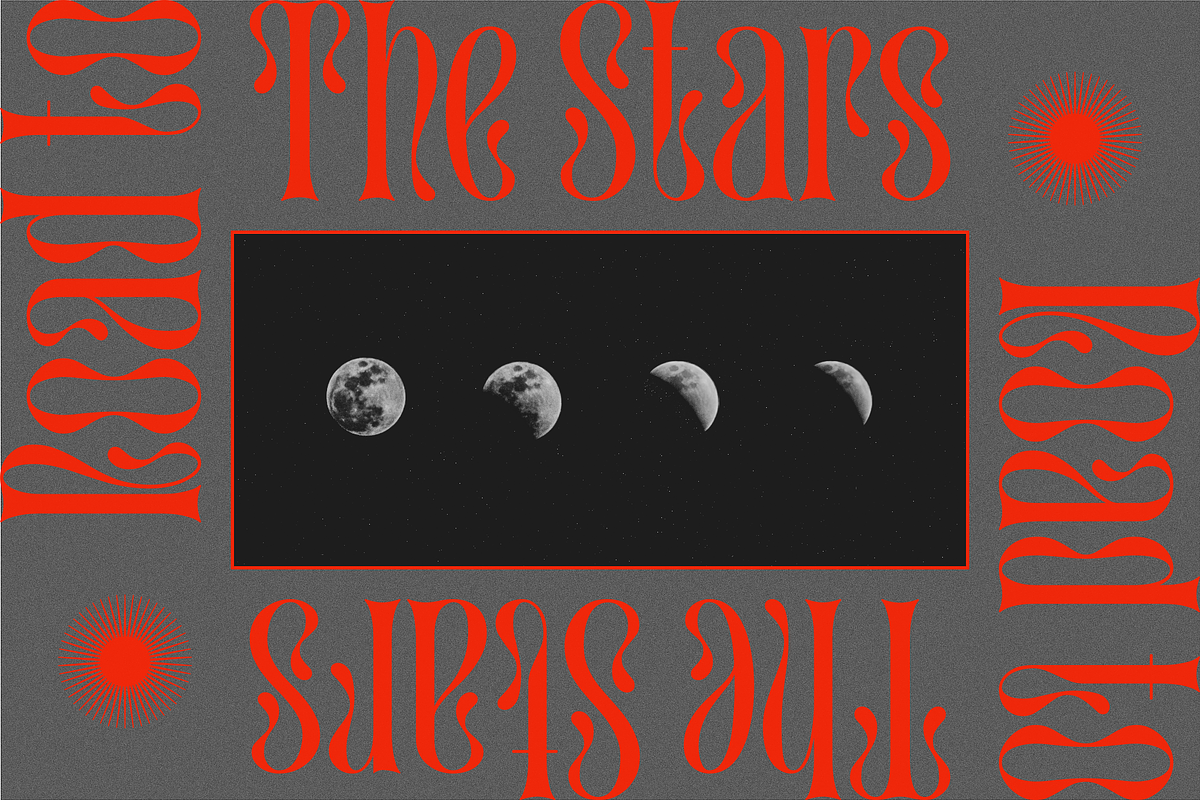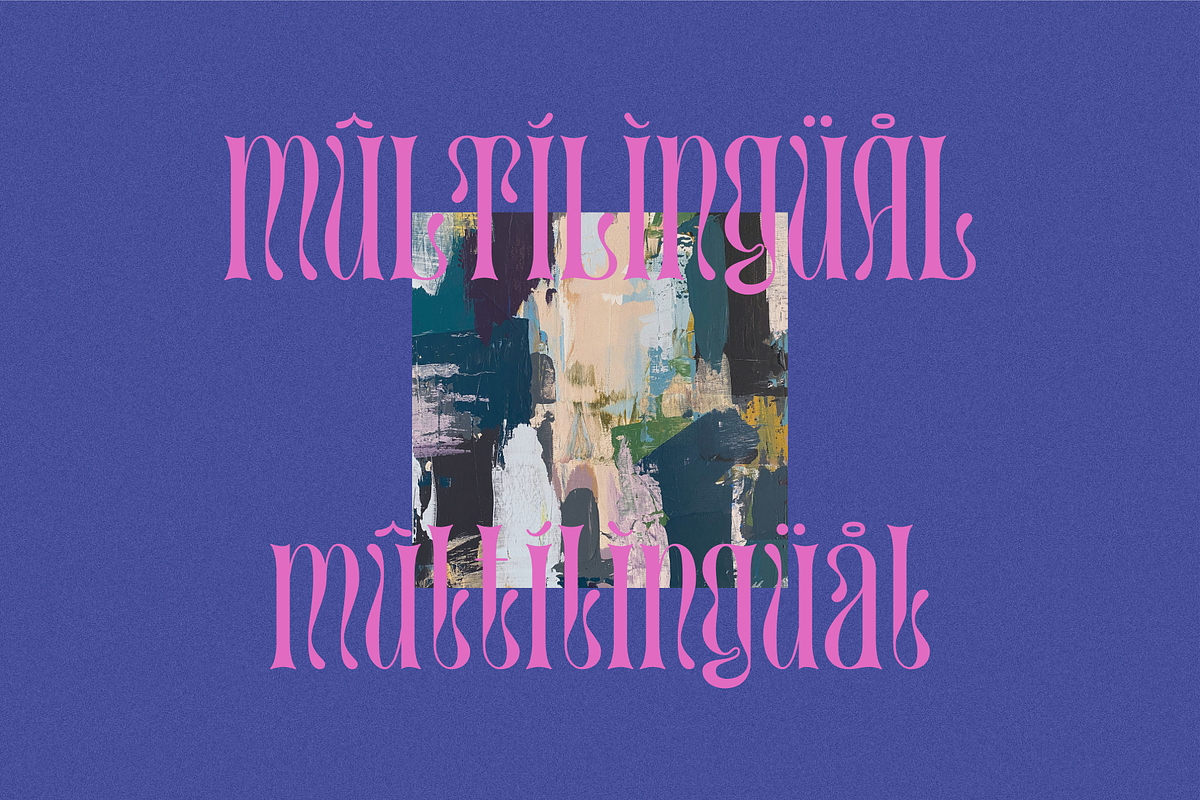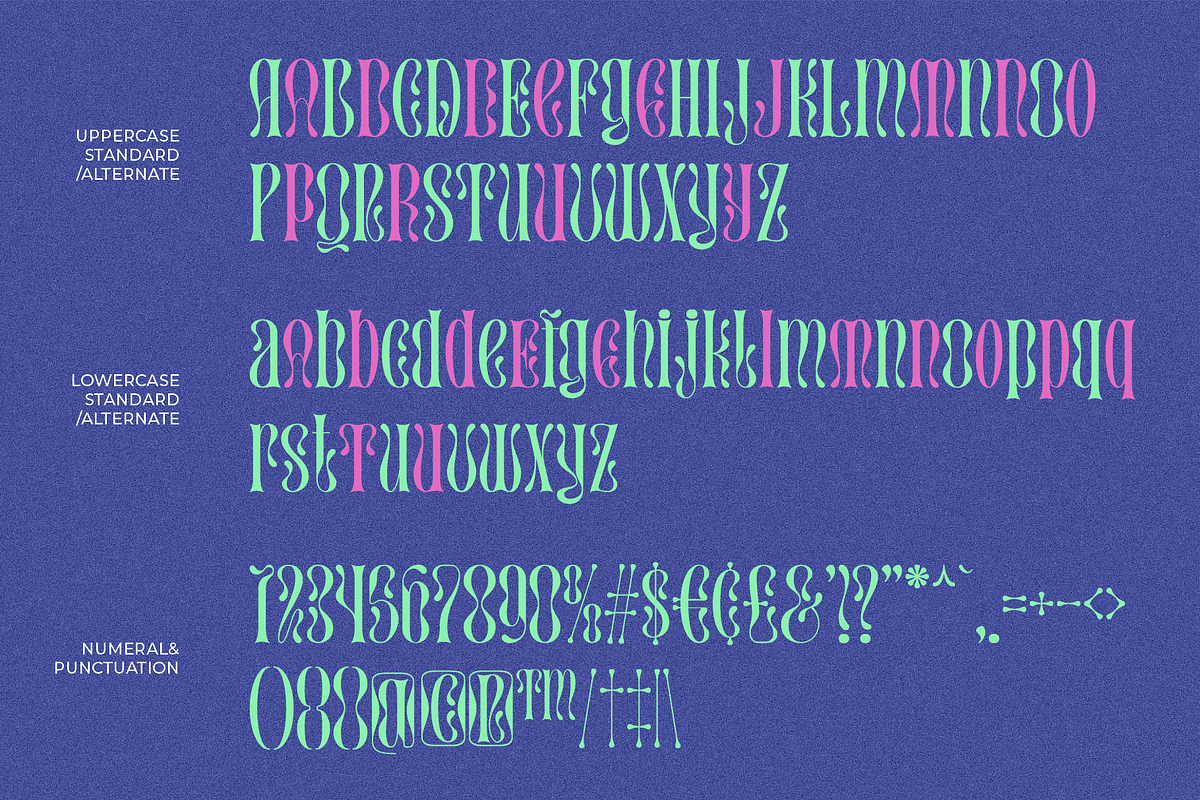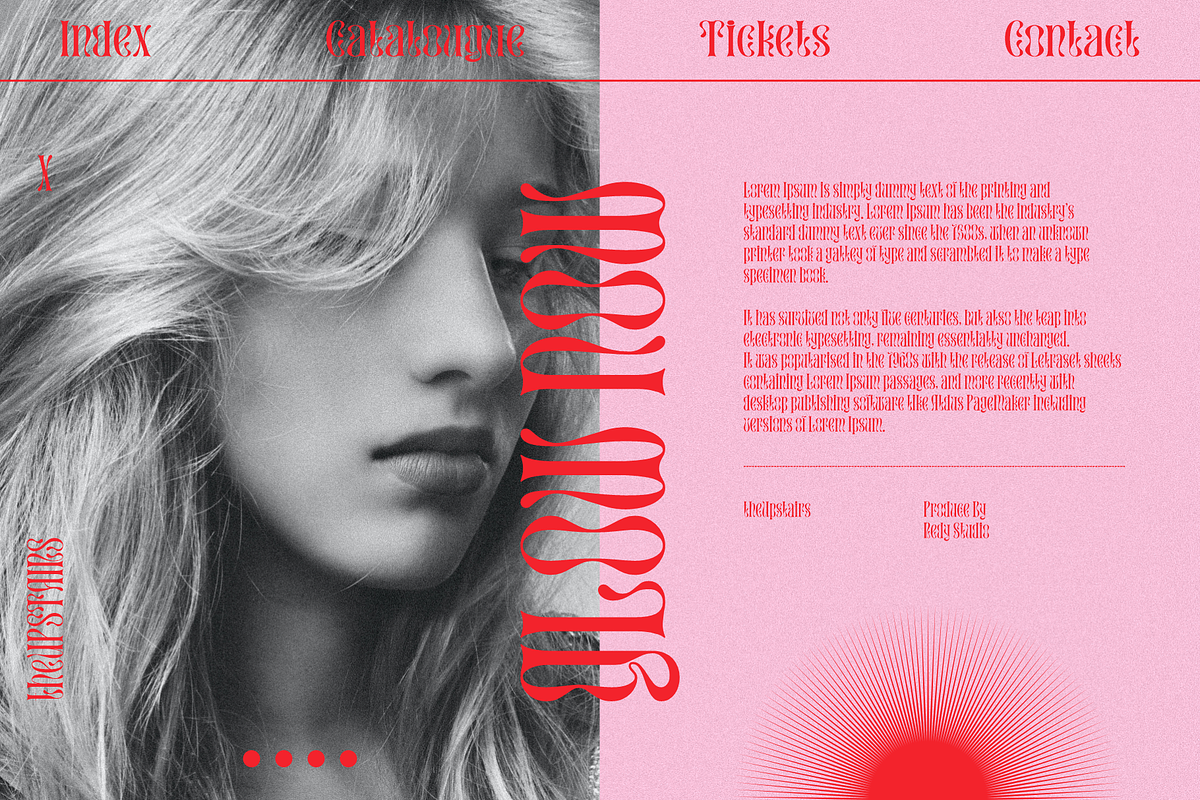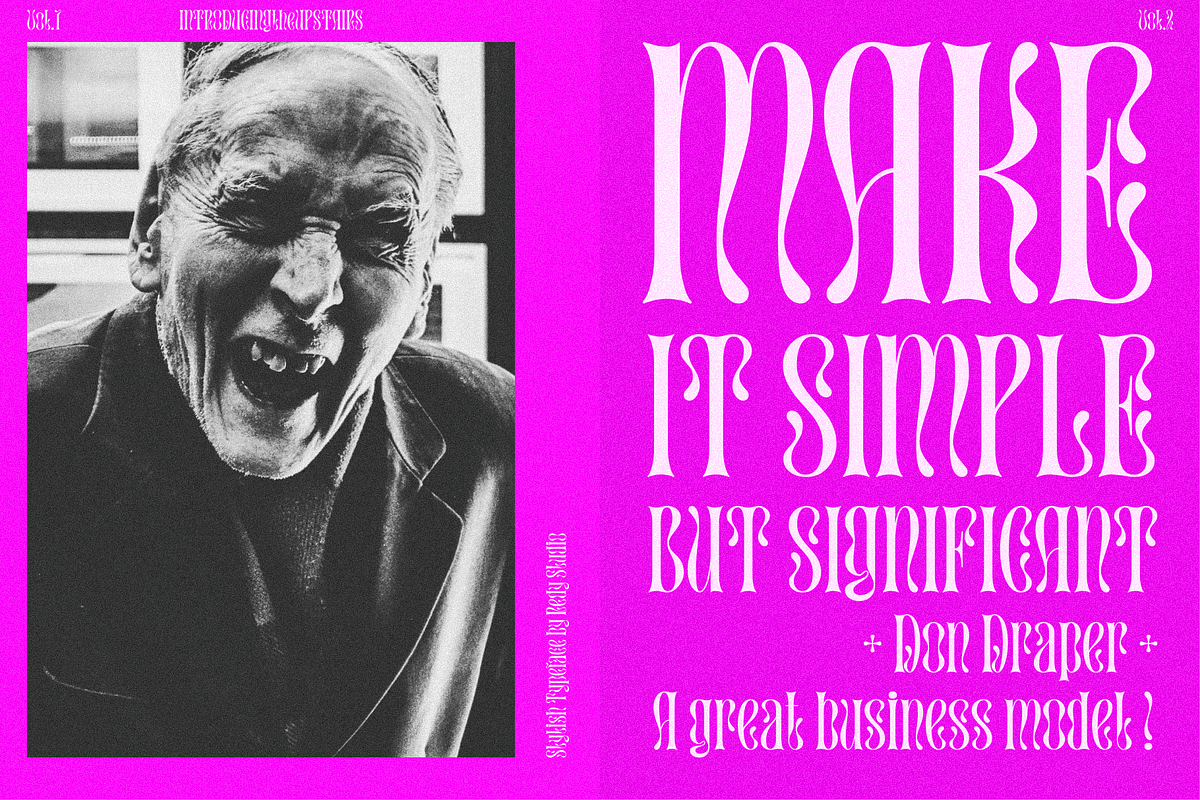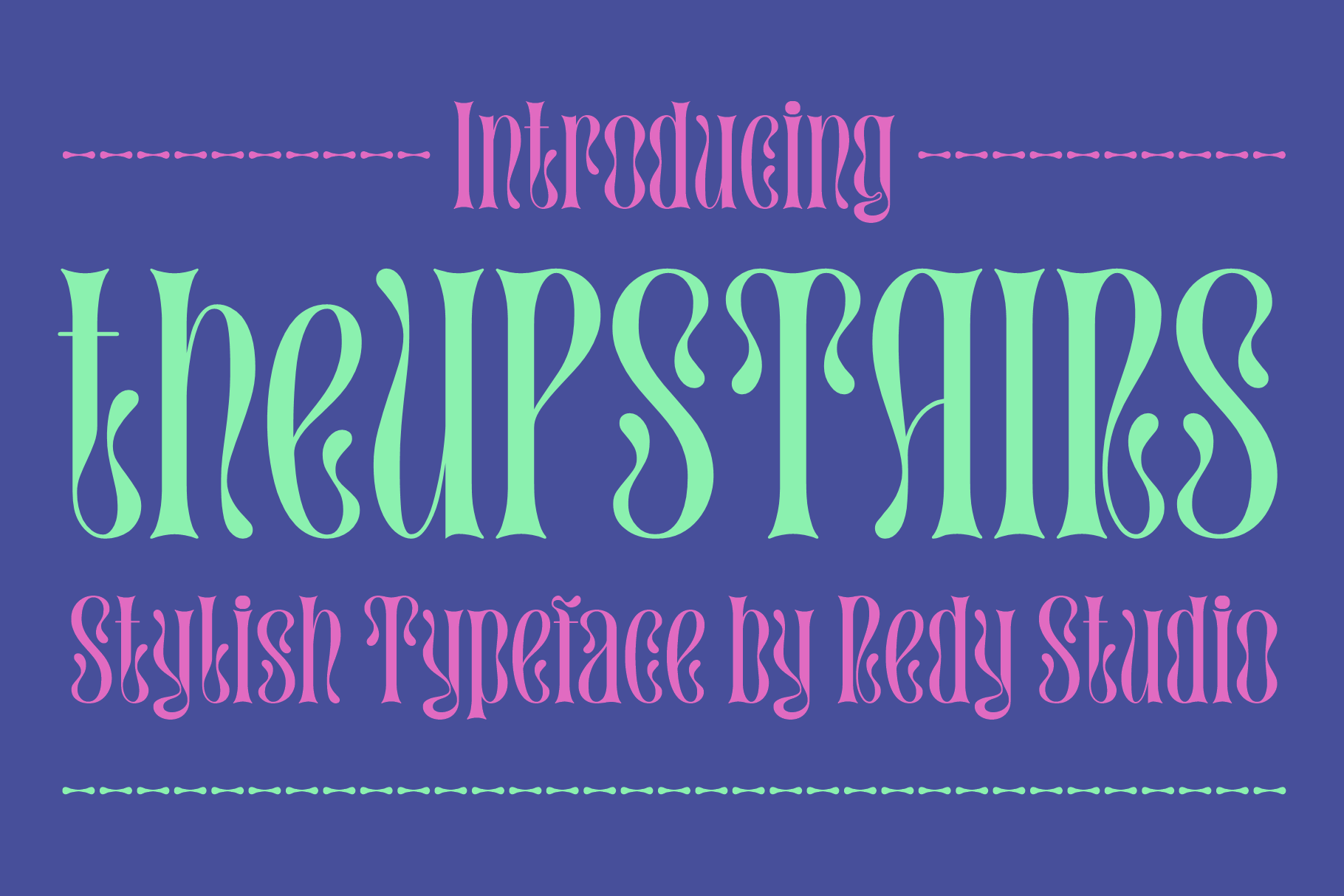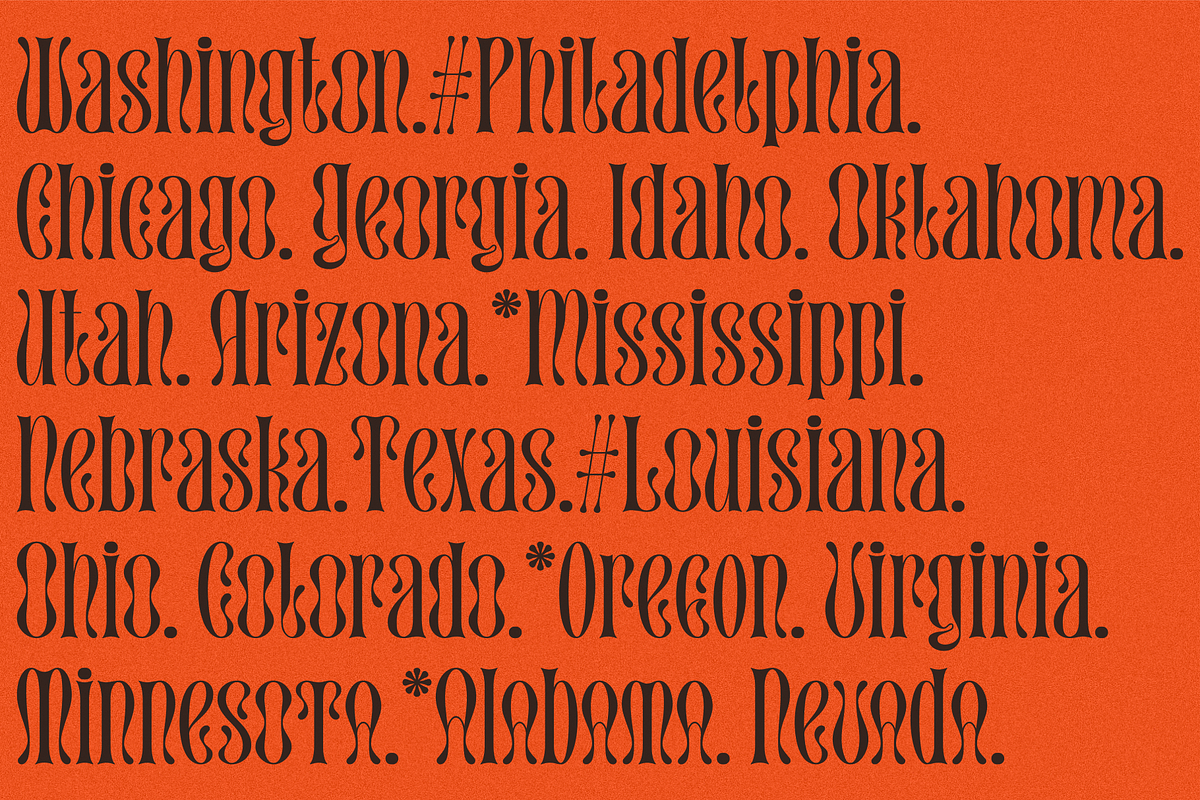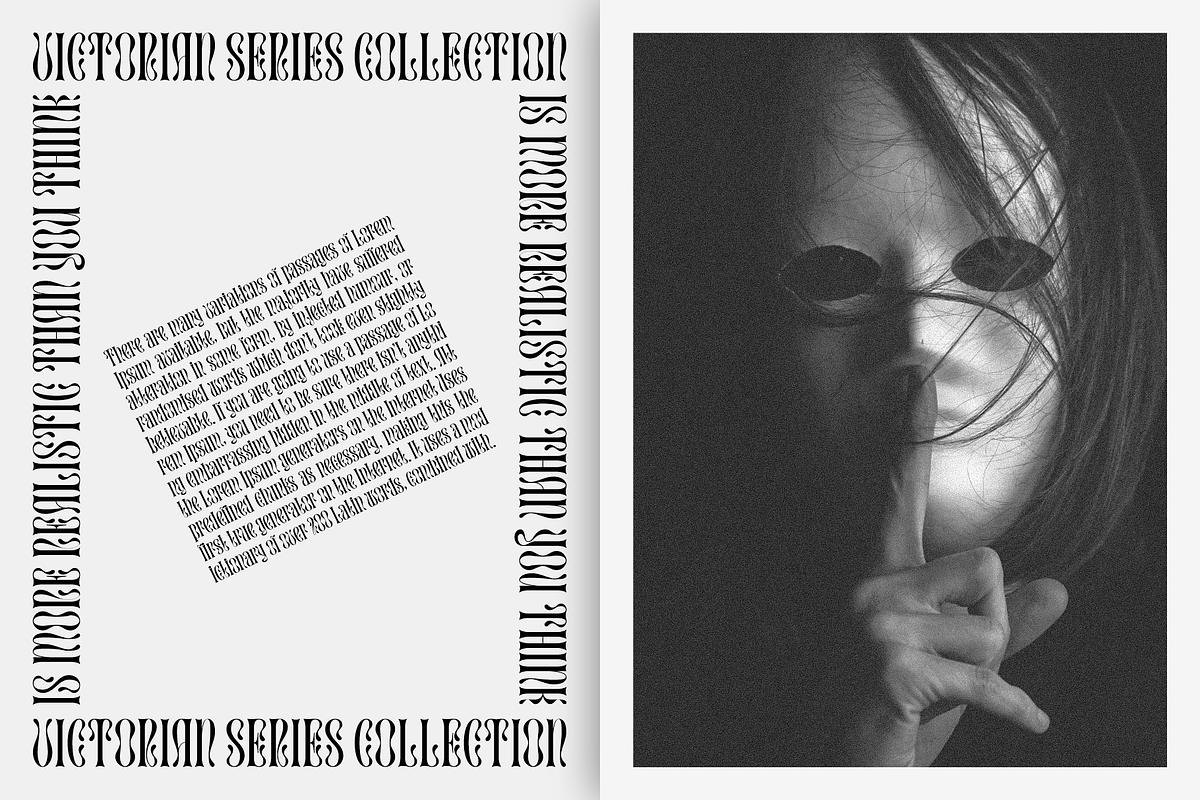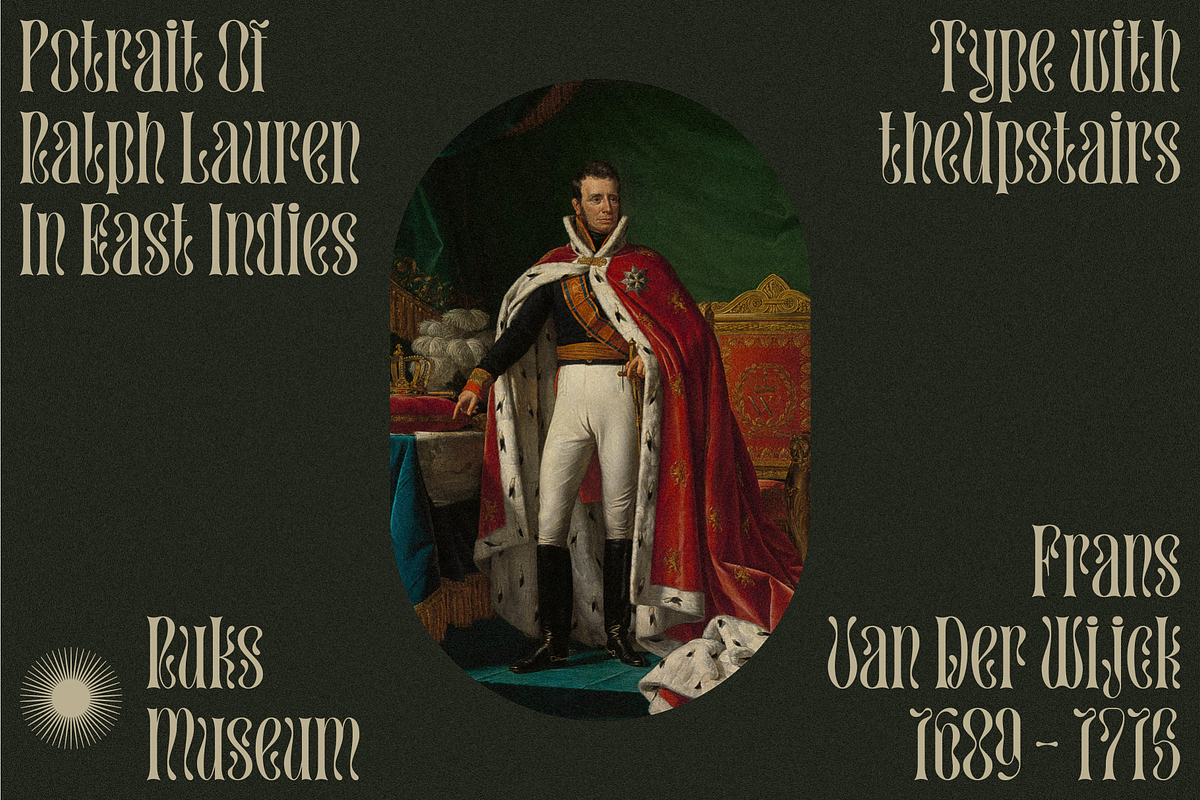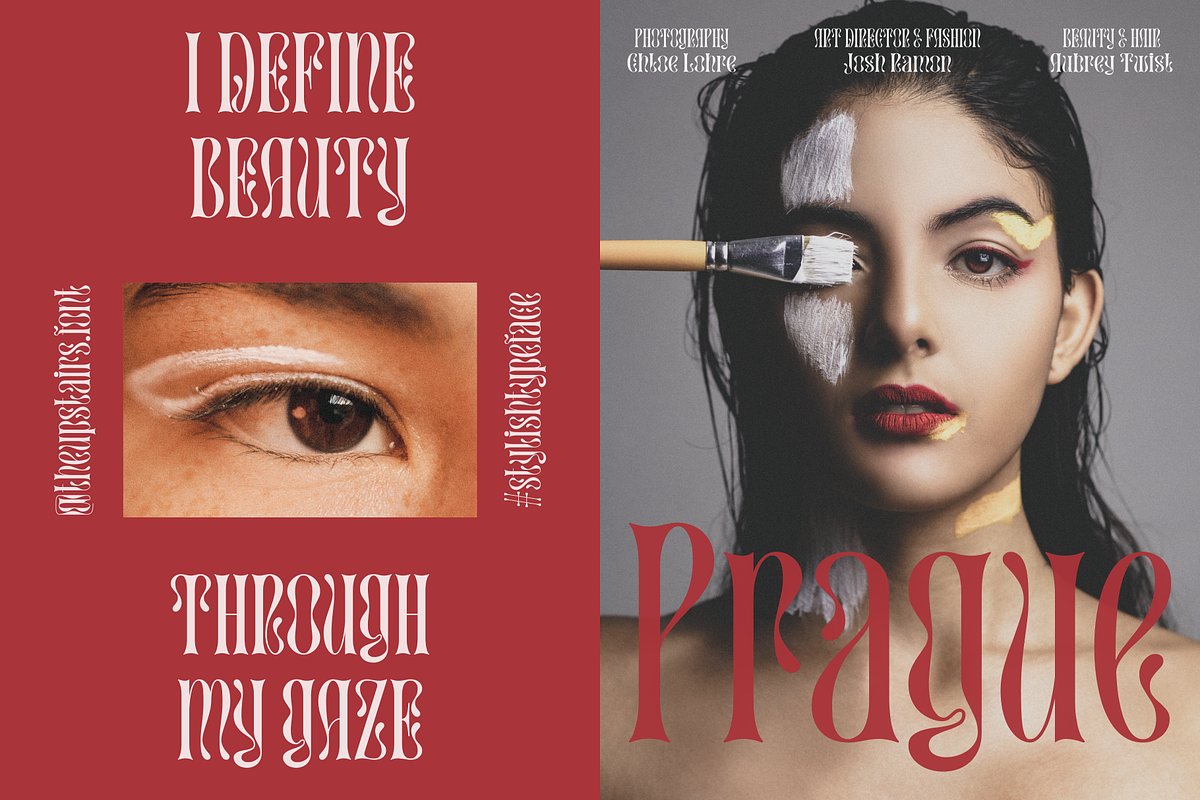
the Upstairs Font
Dear friends, we are so excited to share with you our brand new font! Just check out this new typeface called the Upstairs Font. Cool looking and unique typeface that gives your work an awesome look. This font is great for books, magazines, logos, branding, photography, quotes, blog header, poster, advertisements, etc. the Upstairs is a display typeface that comes in two styles: Regular and Wide. This typeface gives your work a cool-looking and unique style also this typeface is great for awesome headlines. So take a dive into “The Upstairs”, it’ll be awesome!
the Upstairs features:
- A full set of uppercase & lowercase characters
- Some alternate in uppercase & lowercase characters
- Multilingual symbols